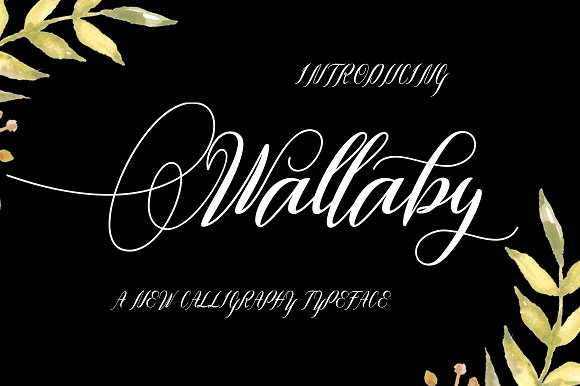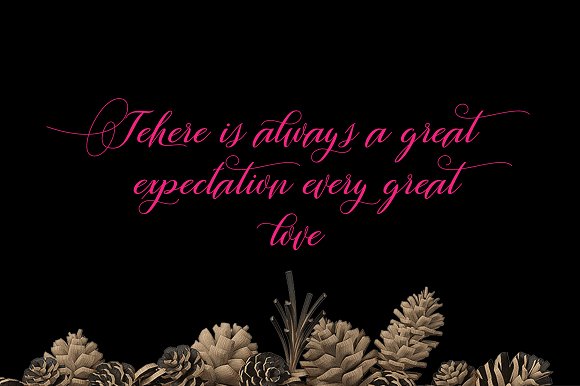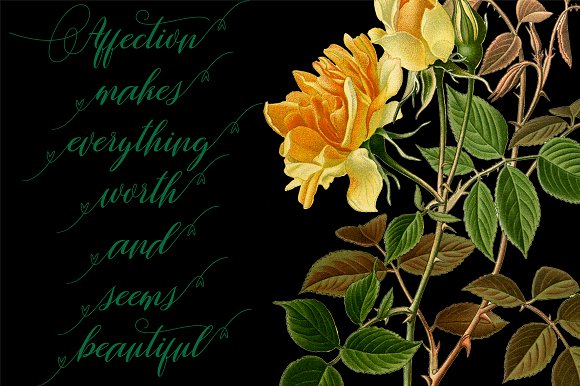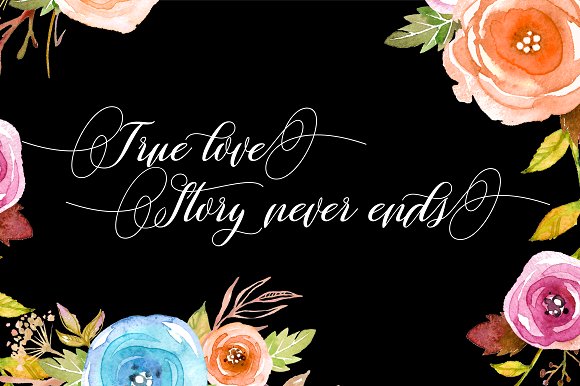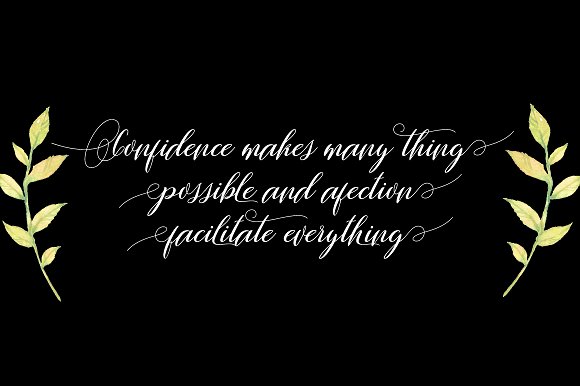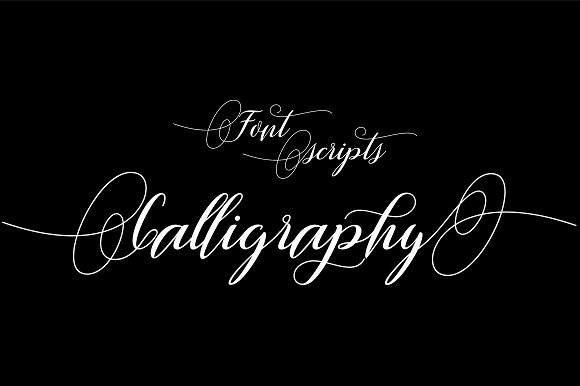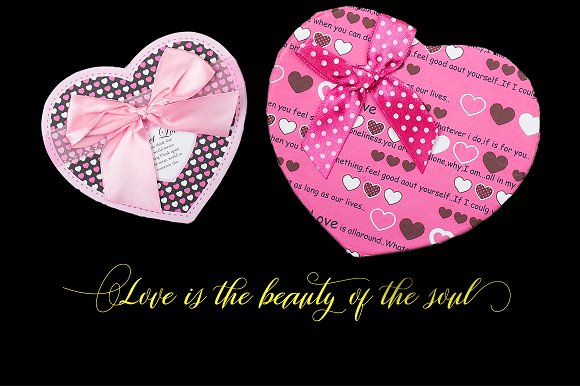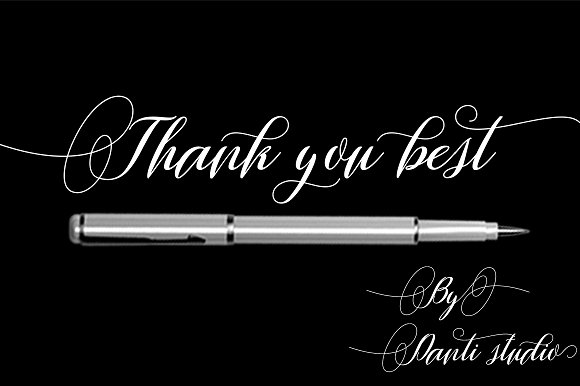
HomeScript FontsWallaby Font Script Fonts Wallaby Font FacebookXPinterestWhatsApp Wallaby Font Poster 2 Wallaby Font Poster 3 Wallaby Font Poster 4 Wallaby Font Poster 5 Wallaby Font Poster 6 Wallaby Font Poster 7 Wallaby Font Poster 8 About Wallaby Font Wallaby is a modern calligraphy font that has been made completely by hand. DOWNLOAD NOW People also explored Stay Woke Font Multiculture Font Zinetshu Font Honey Moon Font Kangtoni Font Christmas Font Angel Love Font Gekisal Font Damage Font 298 0 TagsWallaby Font Previous articleLaventy Script FontNext articleOlive Font LEAVE A REPLY Cancel reply Comment: Please enter your comment! Name:* Please enter your name here Email:* You have entered an incorrect email address! Please enter your email address here Website: Save my name, email, and website in this browser for the next time I comment. Personal Use Free Airmole Personal Use Free Read more about this font Broodfath Personal Use Free Read more about this font Dakwart Letter Personal Use Free Read more about this font Unlock Endless Creativity with the FREE September Clipart Huge Bundle (Valued at $700!) Personal Use Free Read more about this font BLOG Top 7 Google Fonts Alternatives for Faster and Privacy-Friendly Web Design (2025) Top 7 Google Fonts Alternatives for Faster and Privacy-Friendly Web Design (2025) When it comes to web typography, Google Fonts has long been the go-to... Exploring Font Trends Top 10 Handwritten Fonts That Elevate Your Designs 5 Fonts That Will Dominate Design Trends in 2026